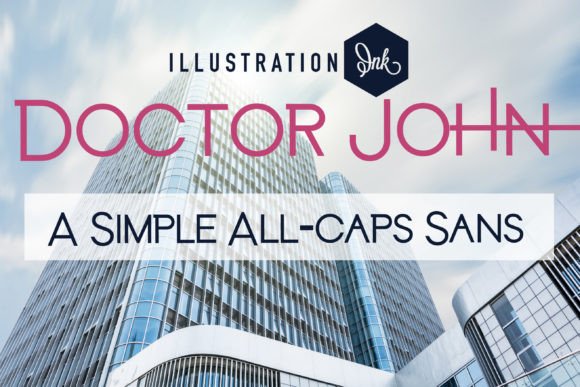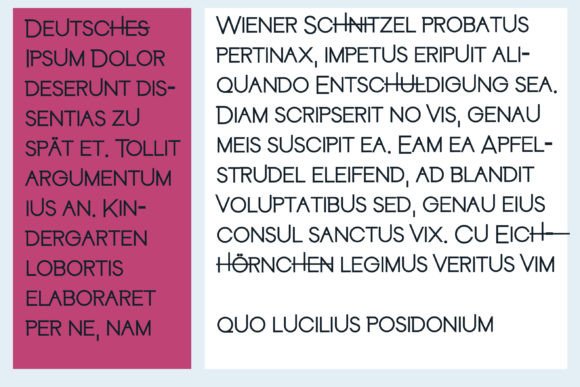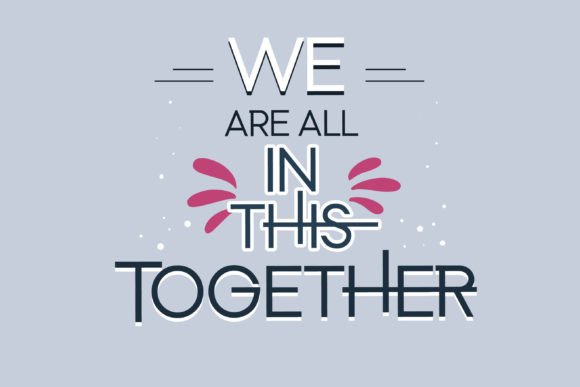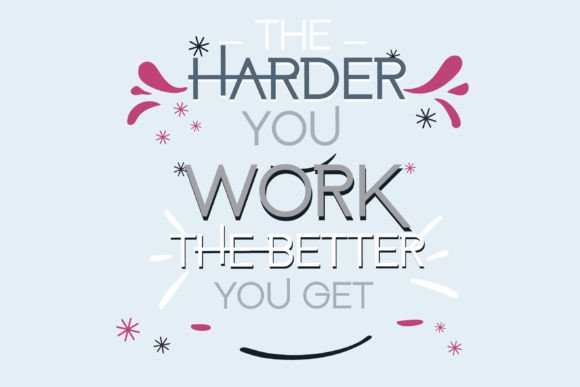
Doctor John Font: A Modern & Unique Sans Serif for Logo Design
About the Doctor John Font
Welcome to the world of Doctor John Font, a typeface that will inspire your next great project. This sans serif font is an all-cap font with a slightly smaller lowercase and an “h” with a fun, extra-long crossbar. Masterfully designed to become a true favorite, Doctor John has the potential to bring each of your creative ideas to the highest level!
Doctor John’s playful “h” and all-caps structure make it ideal for headlines, short branding statements, and posters where a bold, slightly quirky personality is desired. It would also work well on packaging for products targeting a younger, more adventurous demographic. However, its all-caps nature and unusual “h” make it unsuitable for body text or long paragraphs; readability would suffer. Avoid using it in UI contexts requiring high legibility.
Pairing Doctor John effectively requires considering its playful boldness. A clean, geometric sans-serif like Futura would provide a modern, balanced contrast. Alternatively, a classic serif like Garamond could offer a sophisticated counterpoint, highlighting Doctor John’s unique character. For a more playful feel, a rounded sans-serif like Gill Sans would create a cohesive, friendly aesthetic.
The overall personality of Doctor John is best described as bold and playful, yet slightly unconventional. It projects a sense of fun and energy, suitable for brands aiming for a youthful, distinctive image.
Doctor John Font Usage Examples
Doctor John Font Example